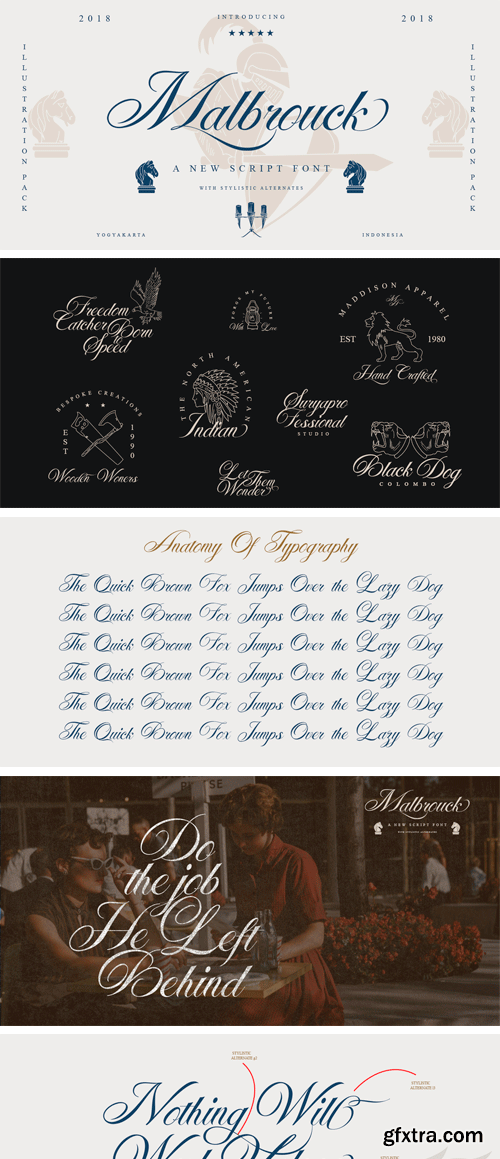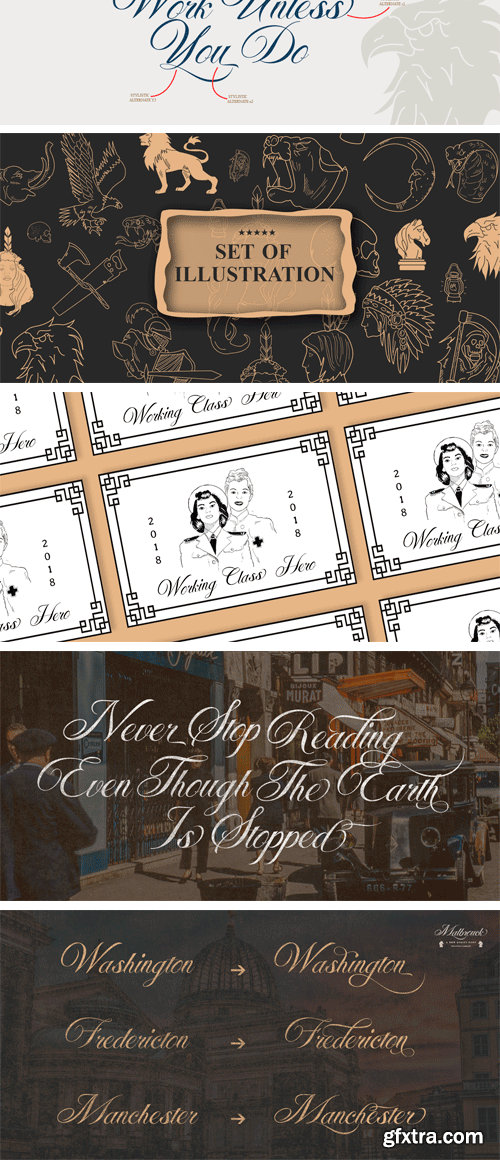
马拉布克手写体字体家族
Malbrouck is a beautifully classic script. It has cleanly looping ascenders and descenders as well as elegant uppercase forms. Classic, yet free spirited, it is a typestyle for a wide variety of use it is very soft and has fast curves, while its low slant angle makes it very legible.
It works perfectly for creative project such as logos , T-shirts / apparel, badges, invitations, packagings, headlines, posters, magazines, greeting cards, and wedding invitations. With bonus illustration in this package. You can access the Open Type features on mostly Adobe programs, such as Adobe Indesign, Adobe Illustrator, Adobe Photoshop. etc.